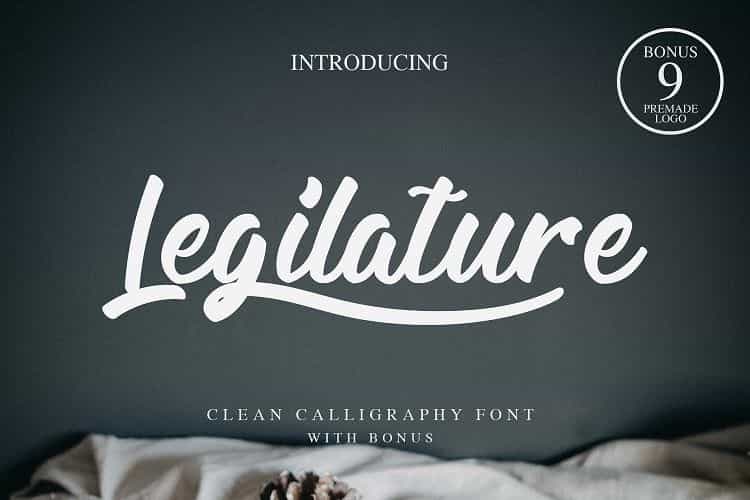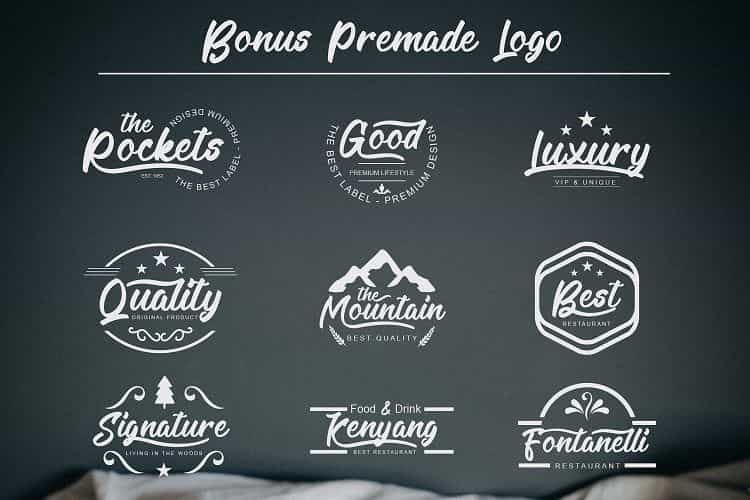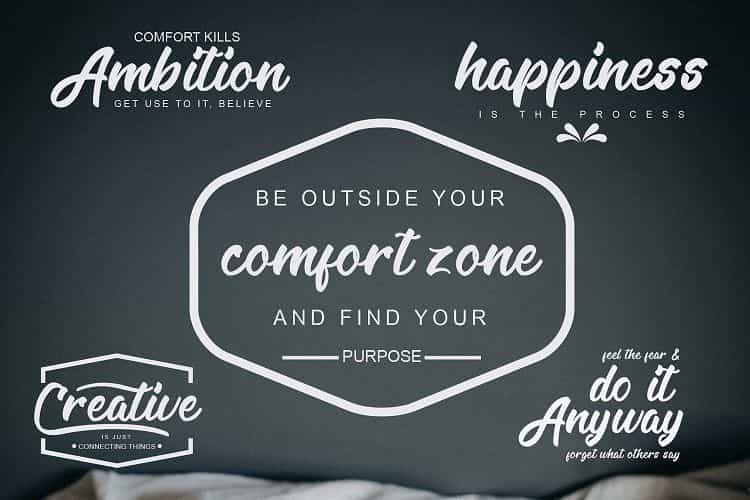
Introducing Legilature Font. Legilature – a Modern Calligraphy Font is an easy and modern calligraphy style, this font is perfect for your next creative projects such as quotes, album cover, business card and many other design projects.